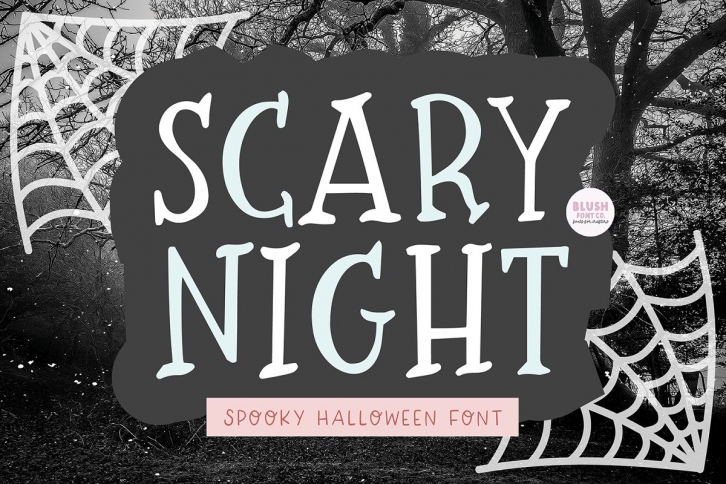
"Scary Night"
A Spooky Halloween Serif Font
This is an installable font that will work great with your Halloween party invitations, web graphics, and other Halloween decor.
This font comes with all caps letters, numbers, basic punctuation, and intl characters!